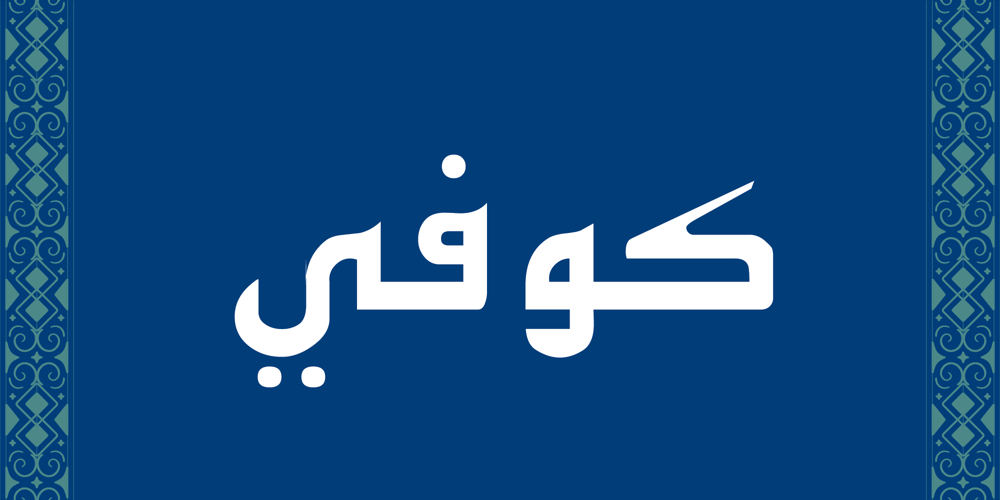
Kufi Font Family was designed by Diwan Font Team and published by Diwan Software. Kufi contains 1 styles and family package options. Kufi is an elegant standard Arabic Kufi style font that embodies the timeless beauty and precision of classical calligraphy. With its bold, geometric structure, it combines clean, straight lines and sharp angles, offering a sense of balance and order. The Kufi script, known for its historical roots in early Islamic manuscripts, is characterized by its distinct, square-shaped forms and uniform letter spacing. This font exudes sophistication and clarity, making it ideal for formal or decorative uses such as titles, logos, and high-end branding. Its refined, structured design offers both legibility and a sense of traditional elegance, seamlessly bridging the ancient with the modern.